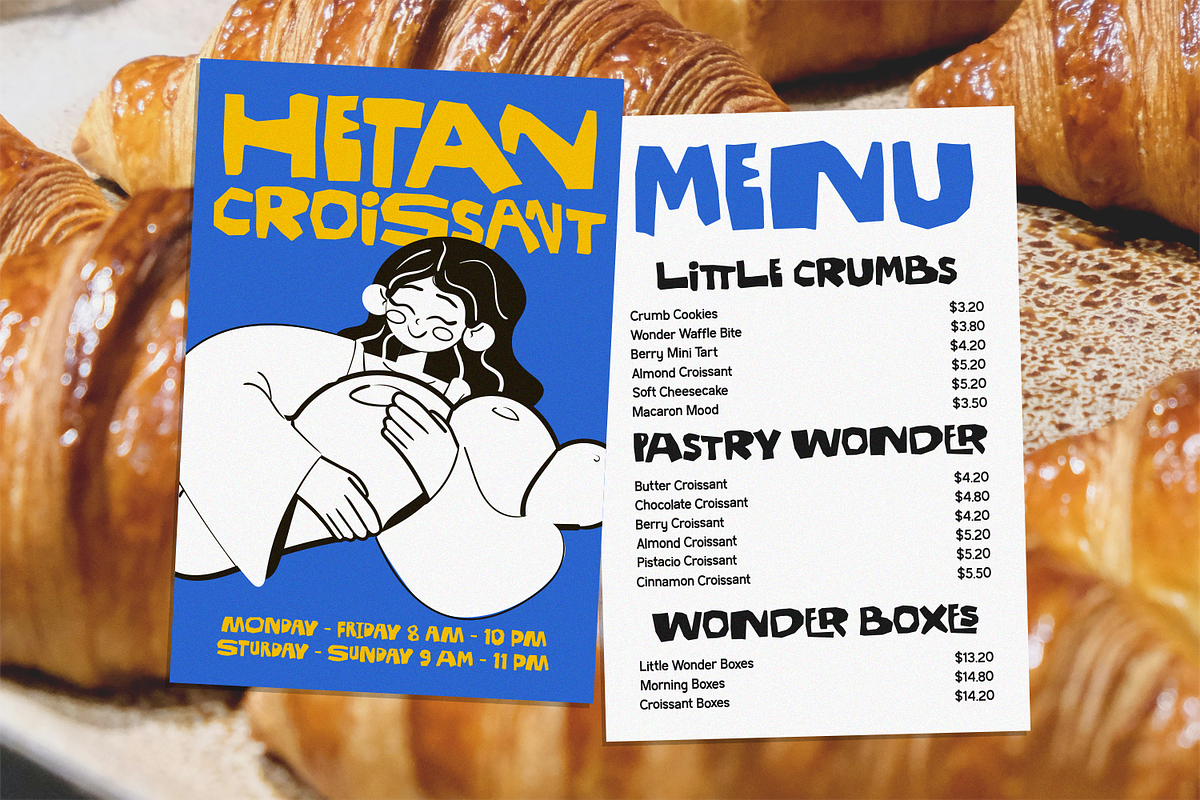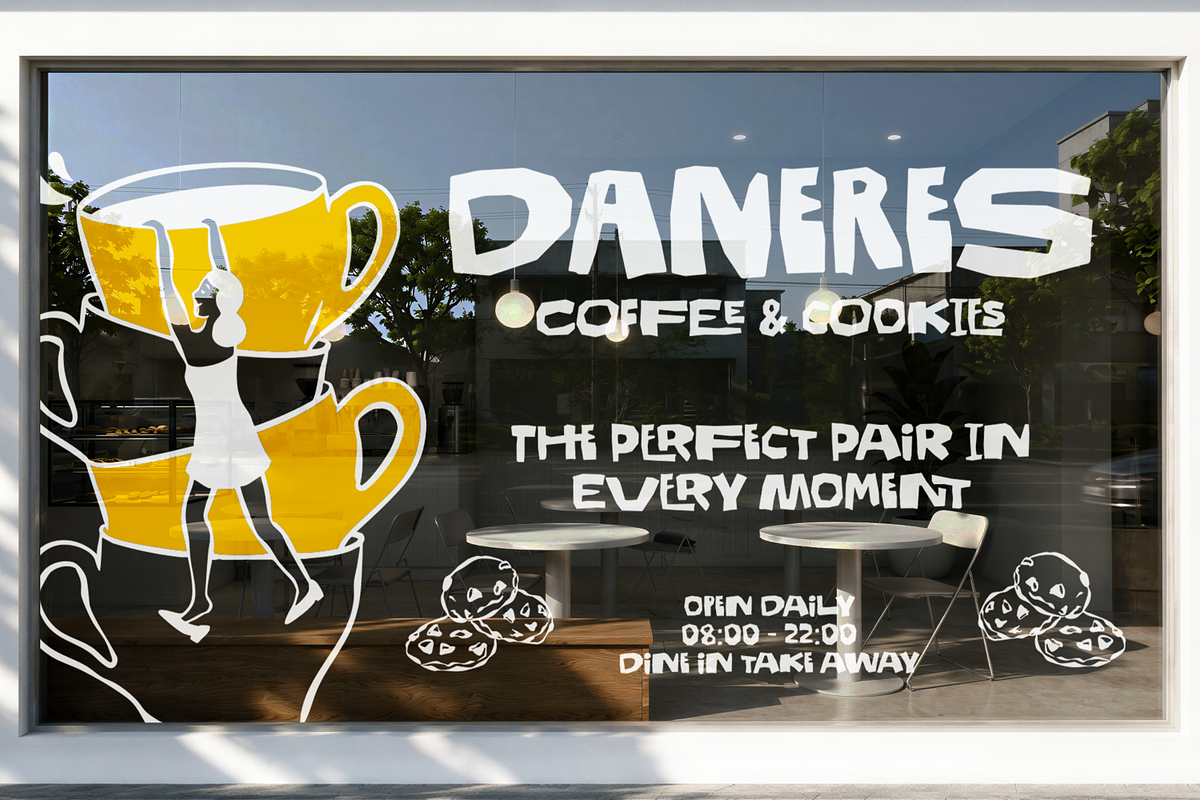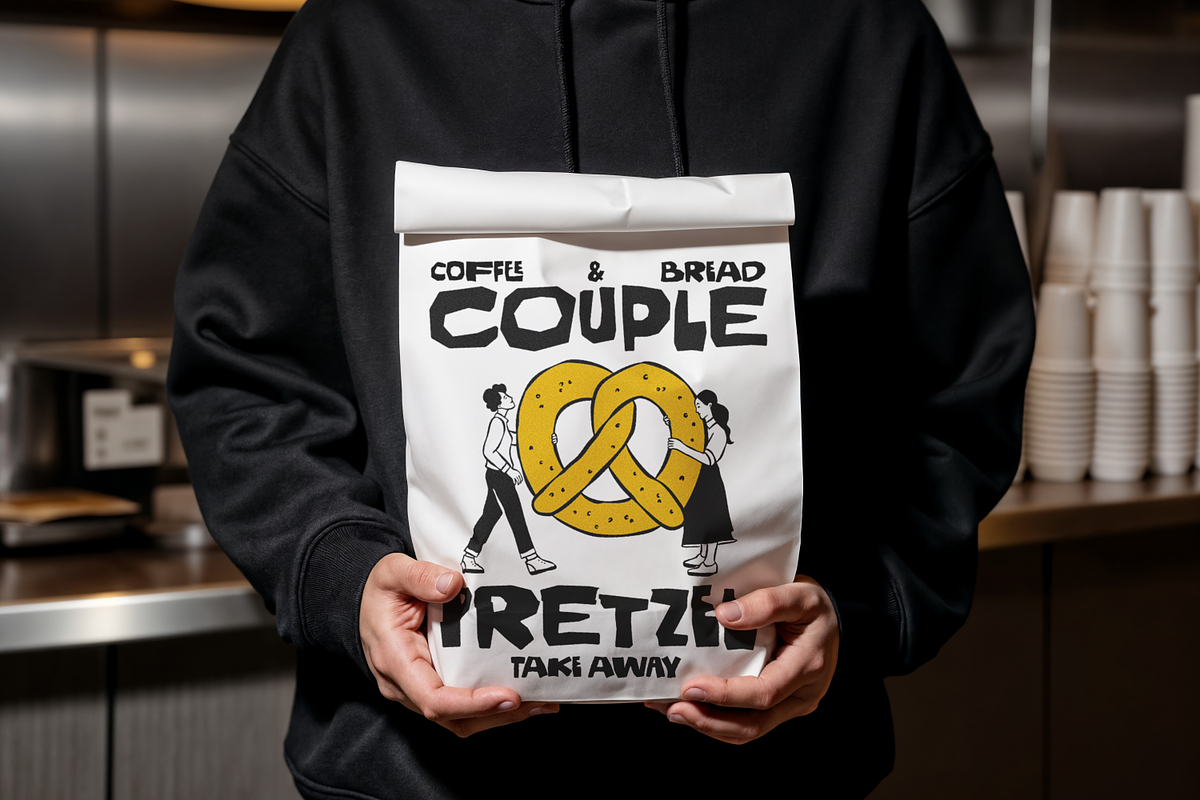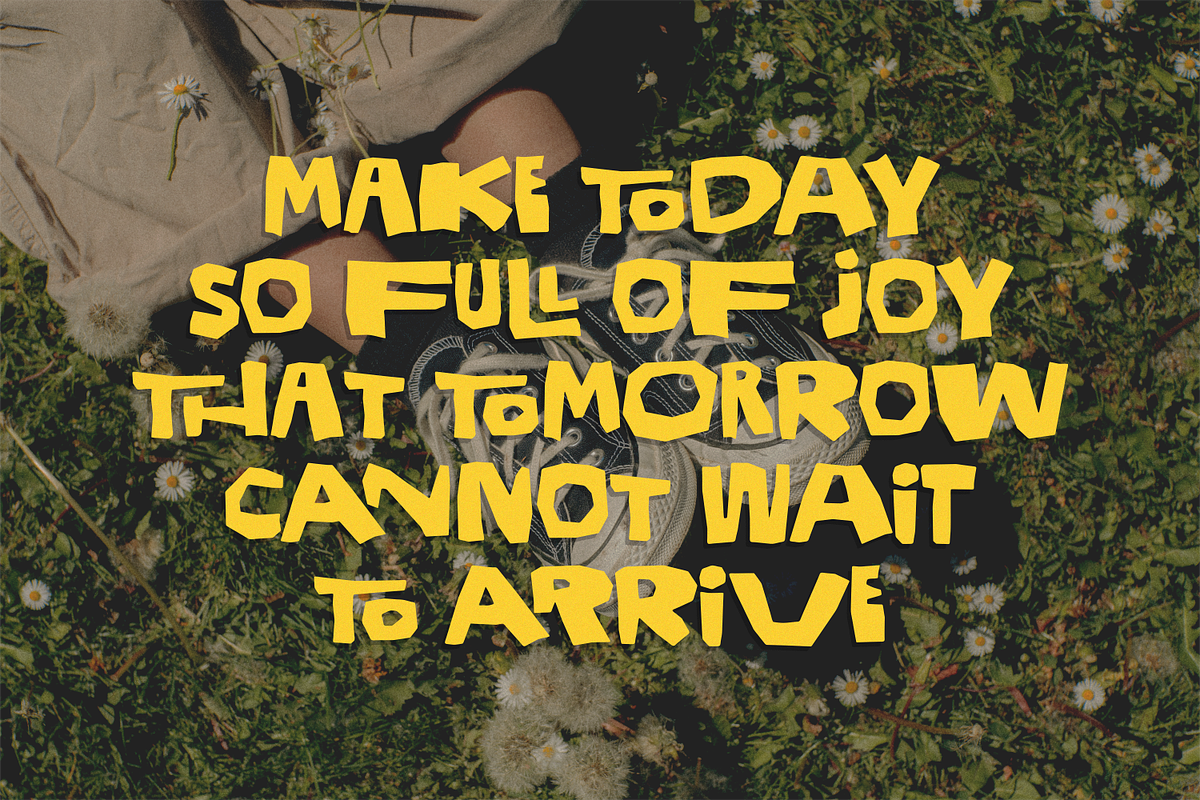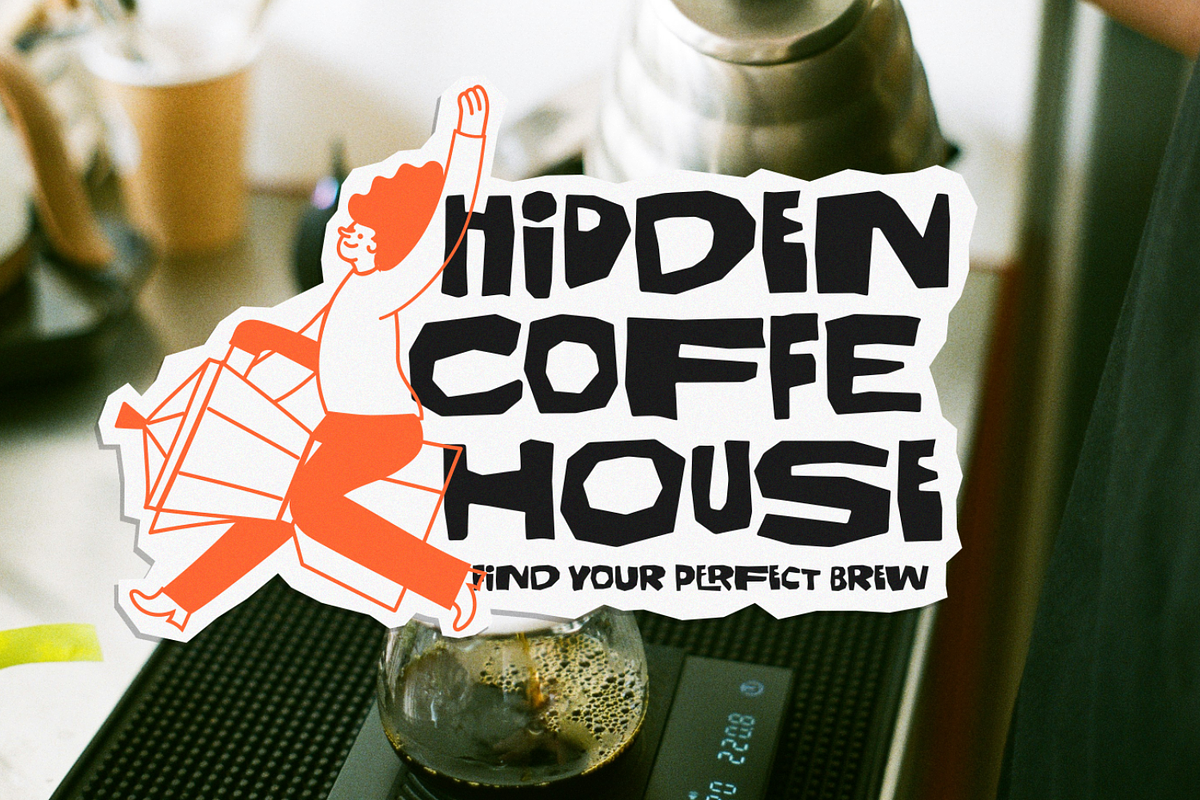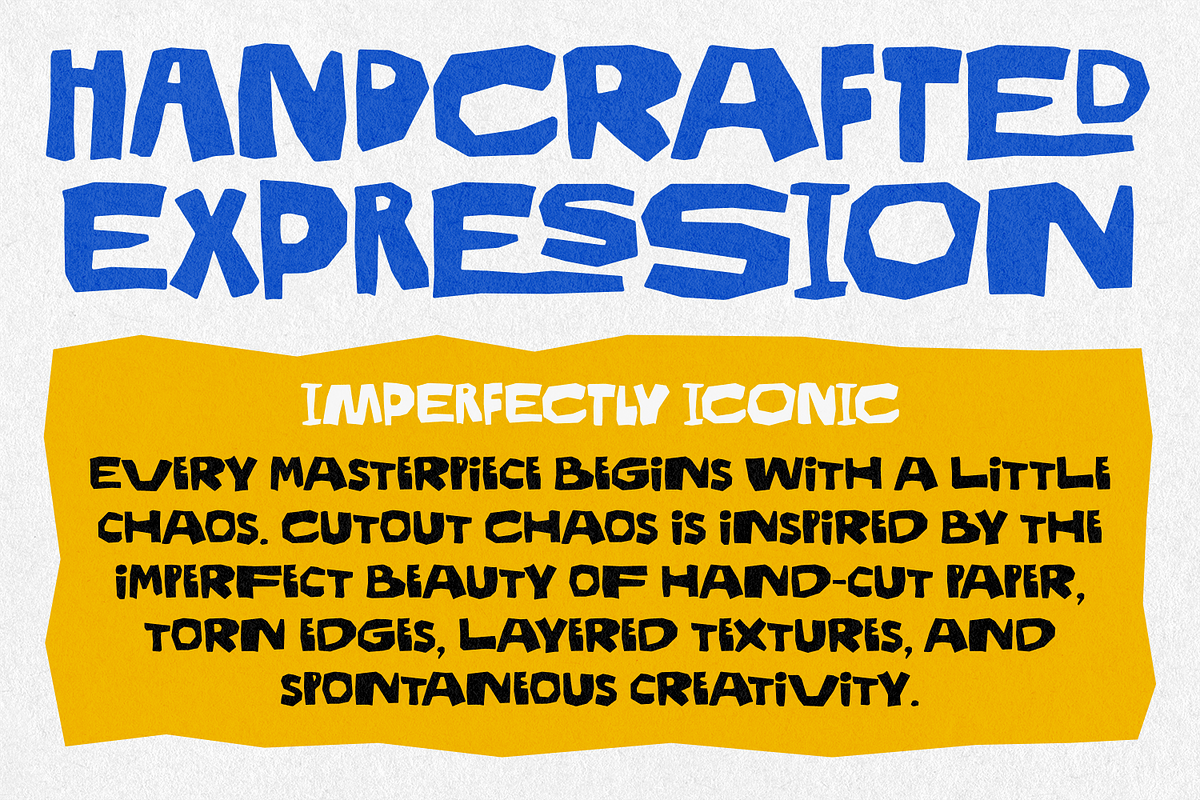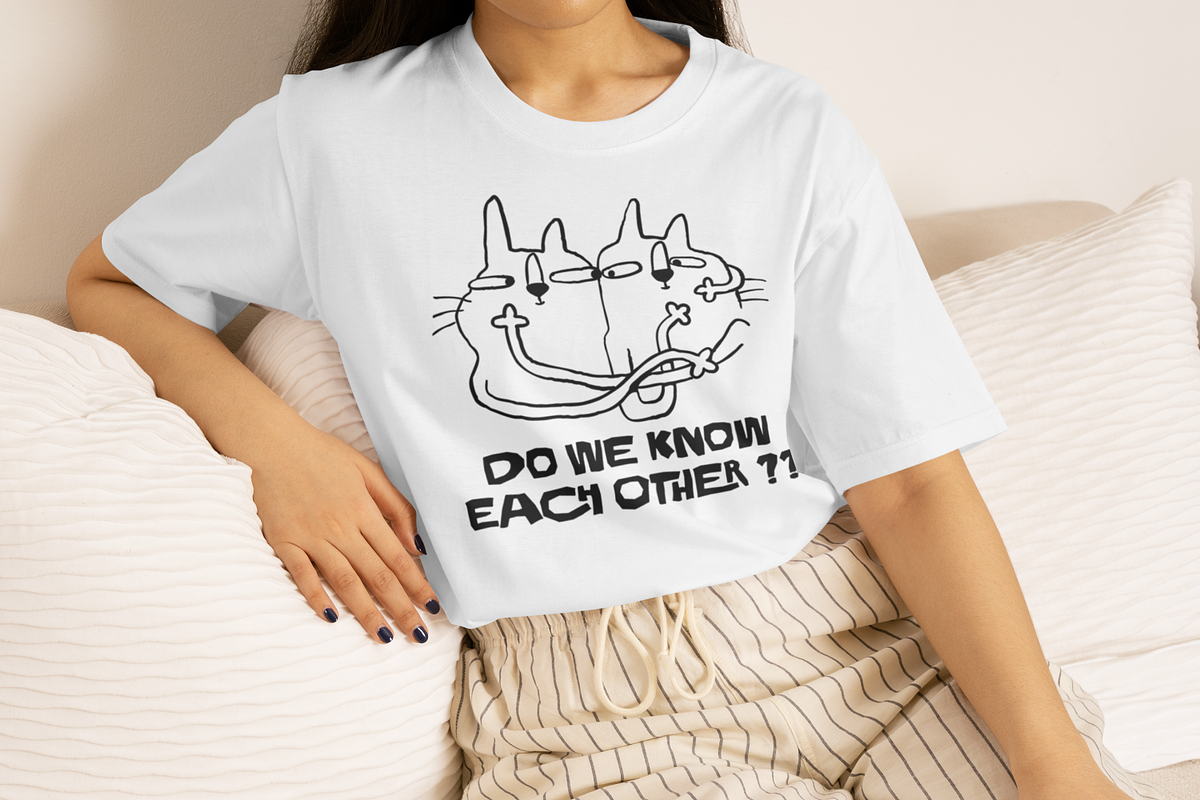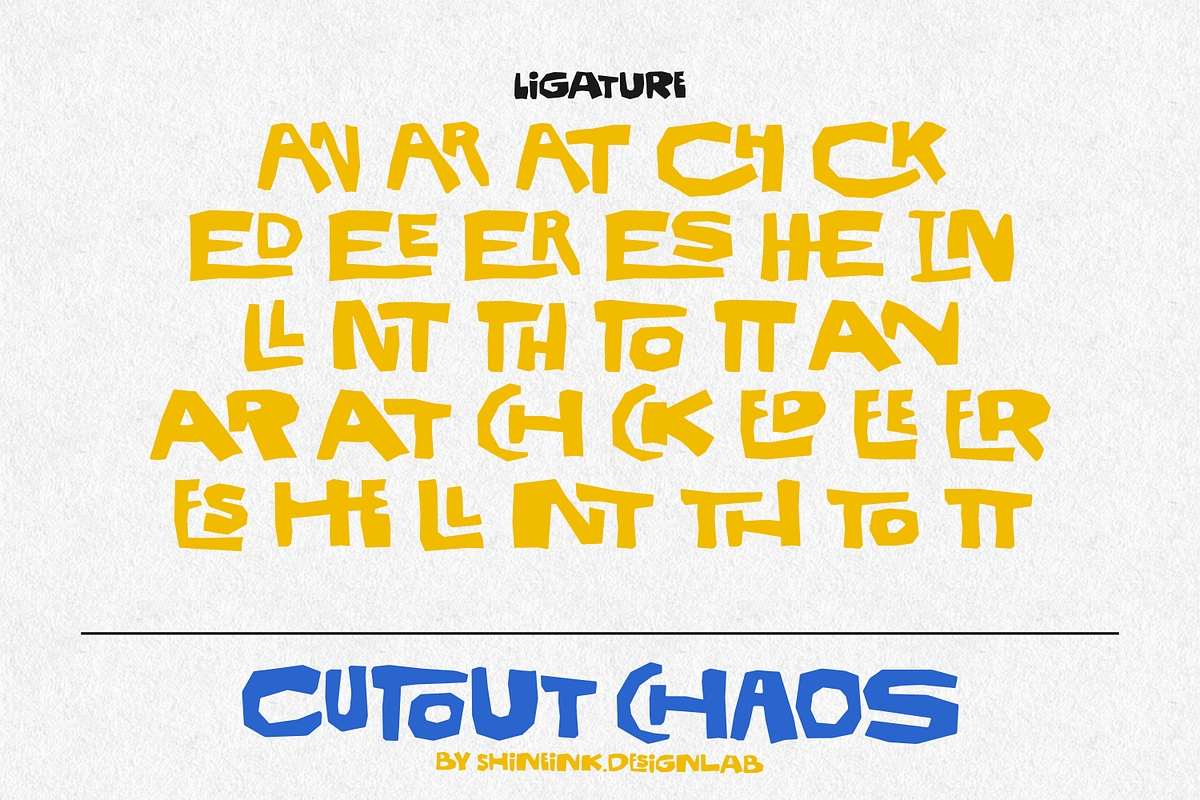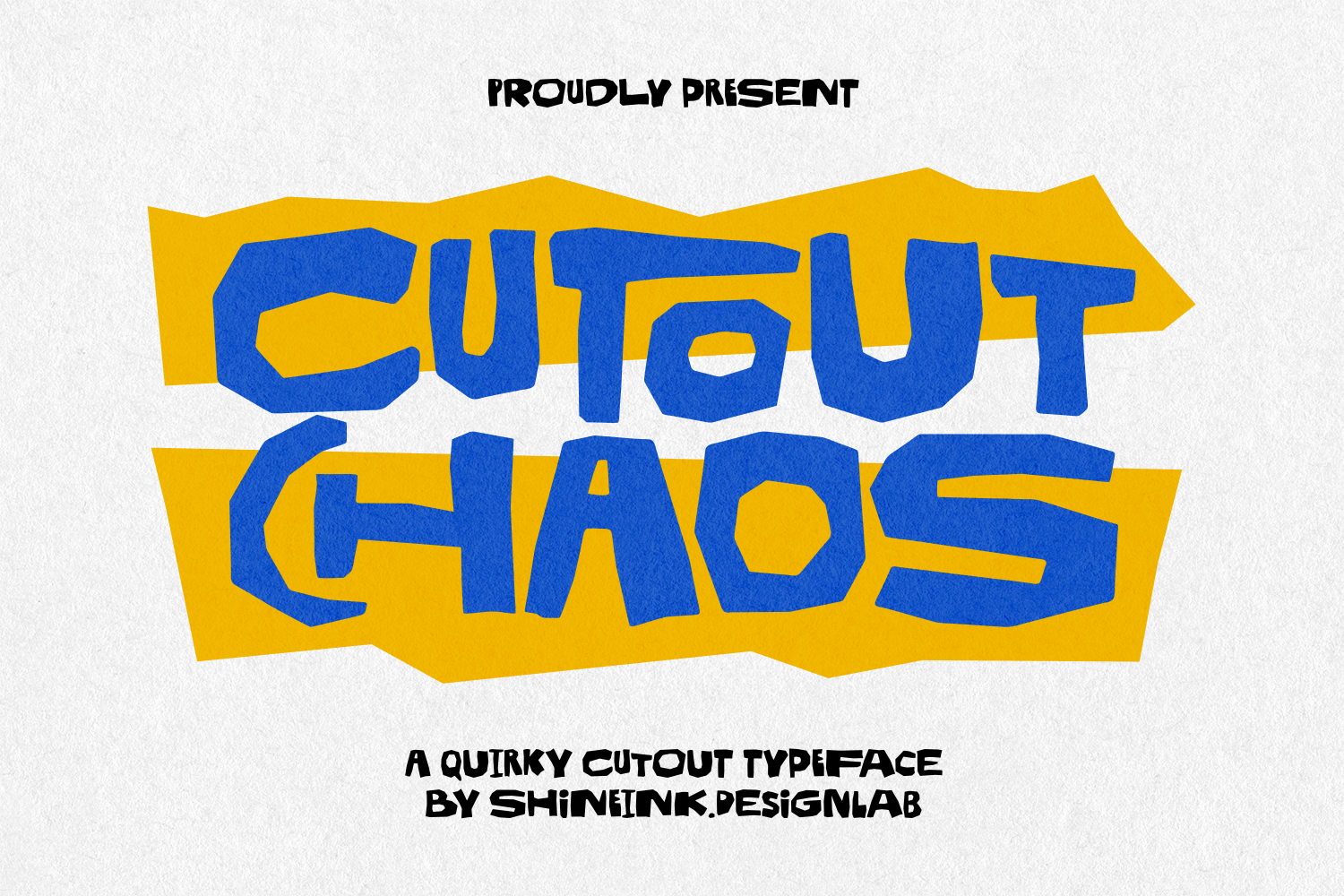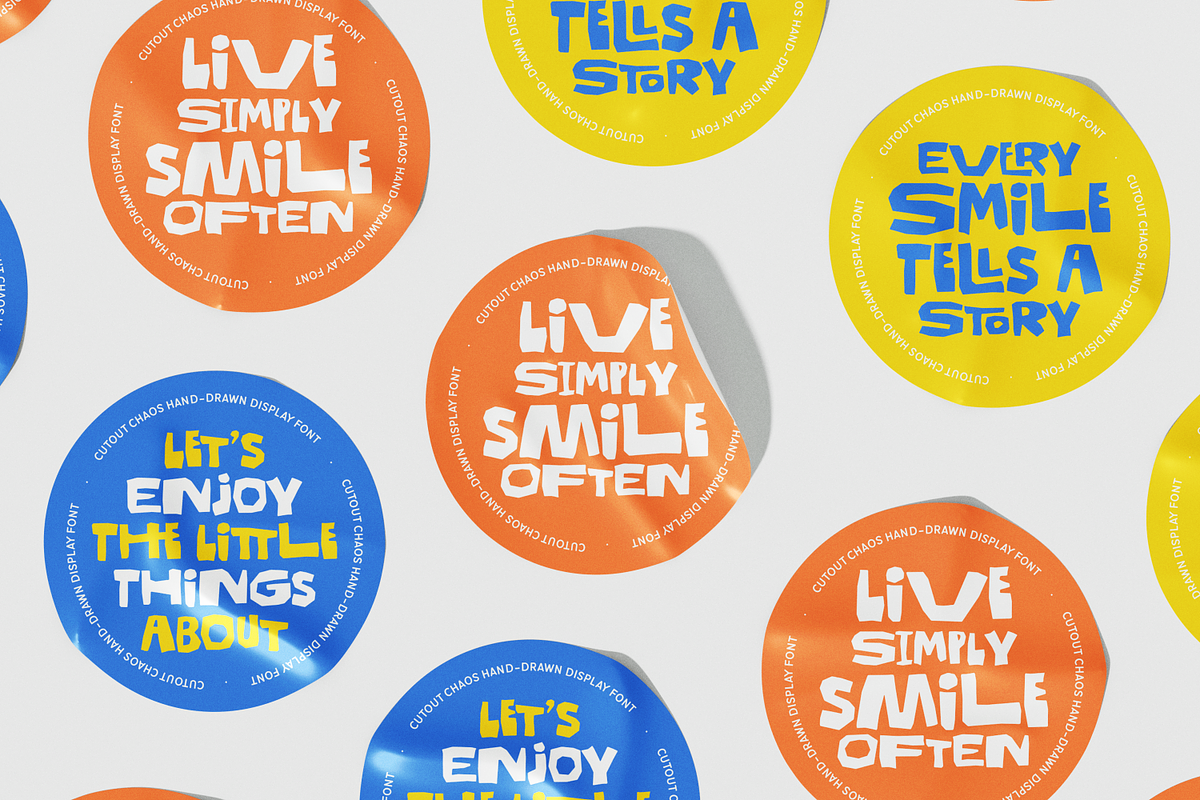
Cutout Chaos – Quirky Cutout Font
Cutout Chaos is a playful display typeface inspired by the imperfect charm of hand-cut paper shapes. Every character features bold geometric forms, uneven edges, and quirky proportions that create a fun, energetic personality while remaining highly readable.
Designed as part of the Morning Chaos Universe, Cutout Chaos carries the same creative spirit with a fresh paper-cut aesthetic, making it perfect for projects that need a handcrafted yet modern look.
Whether you're creating branding, packaging, posters, children's products, YouTube thumbnails, apparel, social media graphics, or playful editorial layouts, Cutout Chaos instantly adds personality and visual impact.
Lowercase and Uppercase
Accented characters
Multiple Languages Supported
Unique Ligature